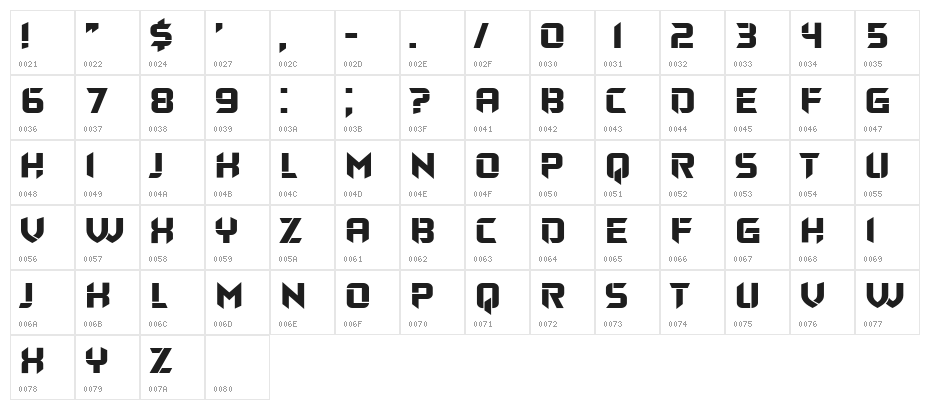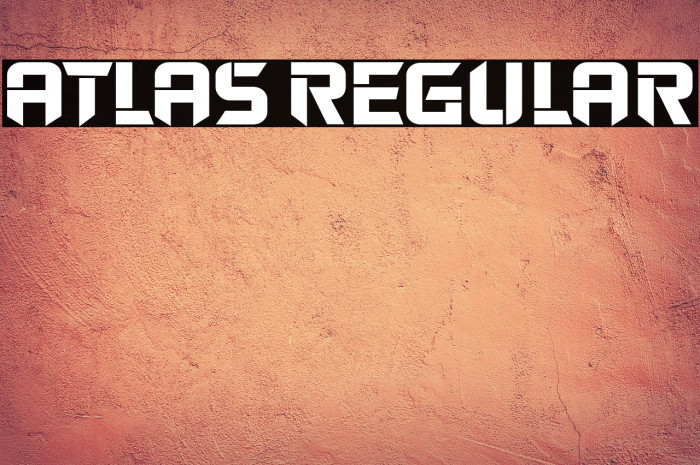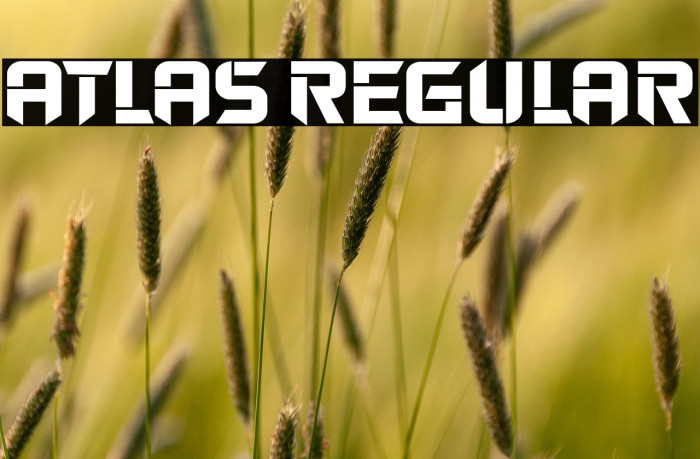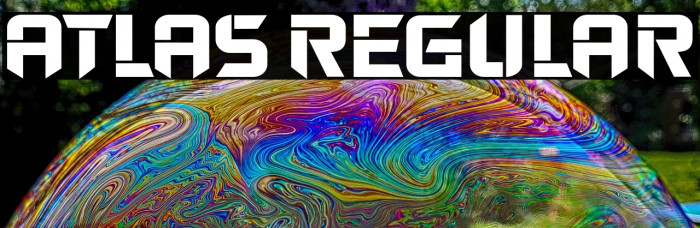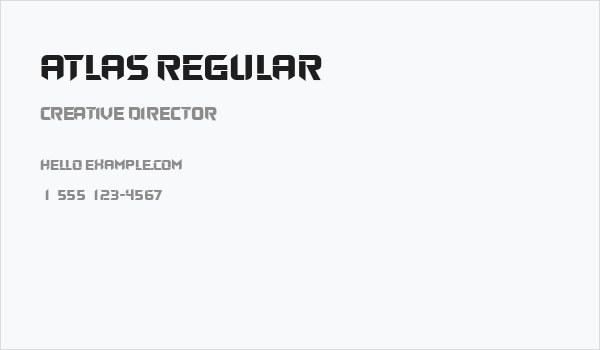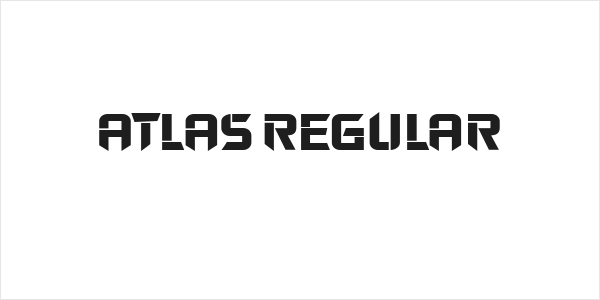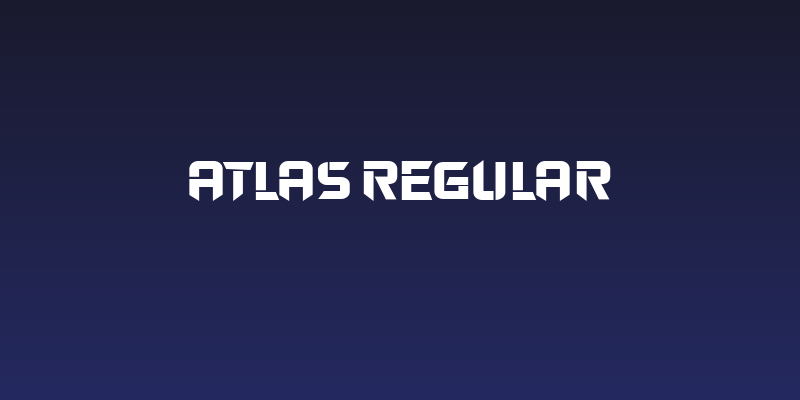
Atlas Regular Font
Atlas Regular Description
This font features a bold, geometric design with sharp angles and a futuristic aesthetic. Each character is crafted with precision, incorporating unique cutouts and angular shapes that give it a distinct, modern look. The uppercase letters are particularly striking, with a uniform height and consistent style that ensures readability while maintaining a strong visual impact. The numerals and special characters follow the same design principles, offering a cohesive appearance across all glyphs. This font is ideal for projects that require a bold statement, such as branding, posters, or digital media.
| Proposed Projects | Ideal for branding, posters, digital media, and any project requiring a strong visual impact. |